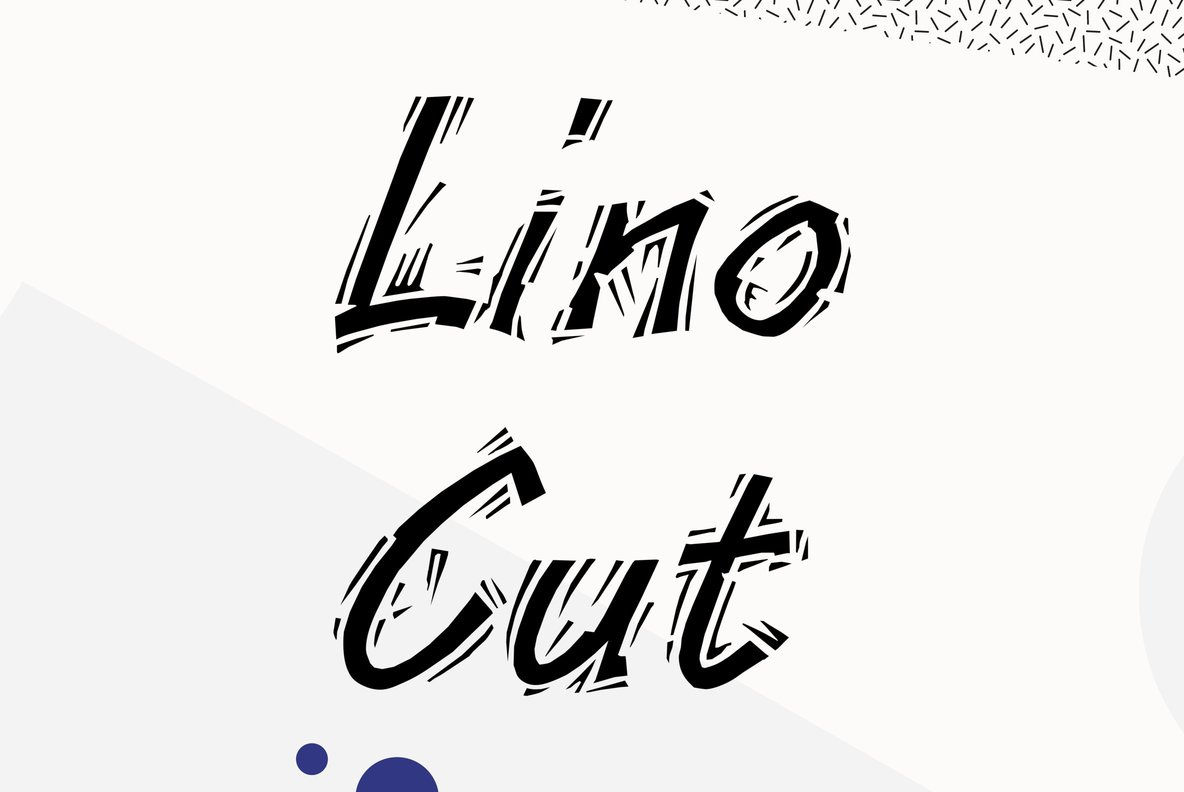
Lino Cut Font
Lino Cut Font is perfect for artisanal craft branding, handmade product packaging, traditional printmaking studios, art workshop promotions, handcrafted goods marketing, and authentic maker space communications. This distinctive typeface excels in artisan market signage, craft fair materials, printmaking exhibition displays, and any application where handcrafted authenticity and artistic tradition create meaningful connections with craft enthusiasts.
What makes Lino Cut Font so exciting is its masterful recreation of authentic linocut printmaking techniques through letterforms that capture the raw beauty and handcrafted imperfections of traditional block printing. The font features carved textures, knife-cut edges, and artisanal character shapes that evoke the tactile satisfaction of hand-carved relief printing. Its authentic craft presence makes it perfect for brands celebrating traditional artistic techniques and handmade quality.
Lino Cut Font comes in a handcrafted family including Light, Regular, Medium, Bold, and Carved weights. Each style features complete uppercase and lowercase character sets, printmaking symbols, hand-carved numerals, and artisanal punctuation marks. The font family also includes textured alternates, carved ligatures, and relief variations that allow designers to create truly authentic printmaking communications with craft appeal and professional artistry.
This artistic typeface transforms modern communications into celebrations of traditional craftsmanship and handmade artistry. Lino Cut Font Free Download provides craft businesses and artistic organizations with essential typography that honors printmaking traditions while serving contemporary maker communication needs. Whether you're developing brands for artisan workshops, creating materials for craft markets, or designing promotional content for handmade businesses, this font delivers authentic craft resonance with artistic integrity.
The font's artisanal character makes it particularly effective for printmaking studios, craft educators, handmade product makers, and traditional art organizations. Its carved readability ensures that Lino Cut Font communicates clearly while maintaining its distinctive handcrafted personality. The font's ability to evoke authenticity and artistic tradition makes it an invaluable carving tool for any project seeking to celebrate craft heritage and connect with audiences through the timeless appeal of handmade artistry, traditional techniques, and the enduring beauty of authentic printmaking craftsmanship.